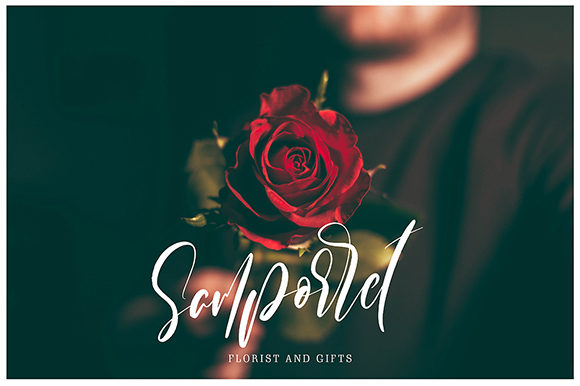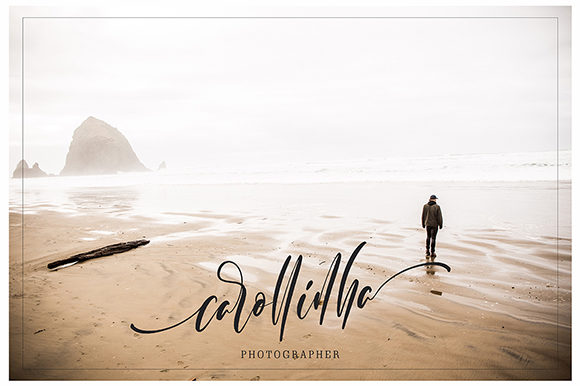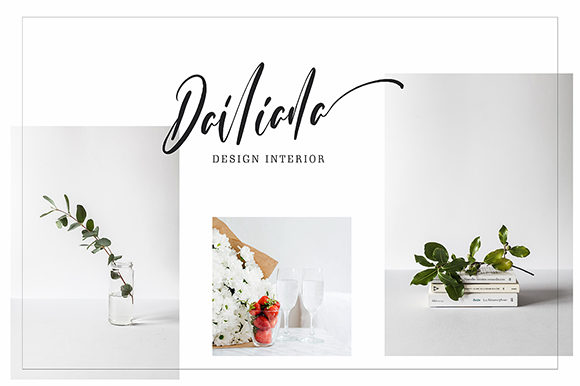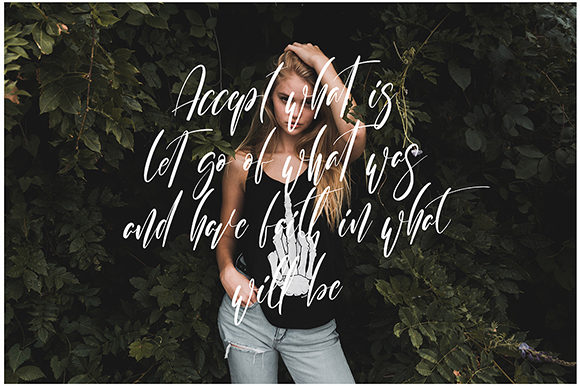
Introduction to Sampestera Font Font
Fonts play a crucial role in design, and the Sampestera Font font is a typeface that brings both character and versatility to any project. Whether you’re working on a branding project, a website, or a print design, the Sampestera Font font offers a unique style that can elevate your work.
Sampestera is a lovely handwritten font with an incredible feel.
Get inspired by its unique charm .
Key Features of Sampestera Font Font
Why Choose Sampestera Font Font?
The Sampestera Font font is more than just a typeface – it’s a design tool that helps you communicate your message with style and clarity. Its unique character set and versatile design make it suitable for a wide range of applications, from elegant invitations to bold headlines.
With its carefully crafted letterforms and balanced proportions, the Sampestera Font font ensures readability and visual appeal across all mediums.
What makes Sampestera Font font special?
The Sampestera Font font stands out with its unique design, exceptional readability, and versatility across various design applications.